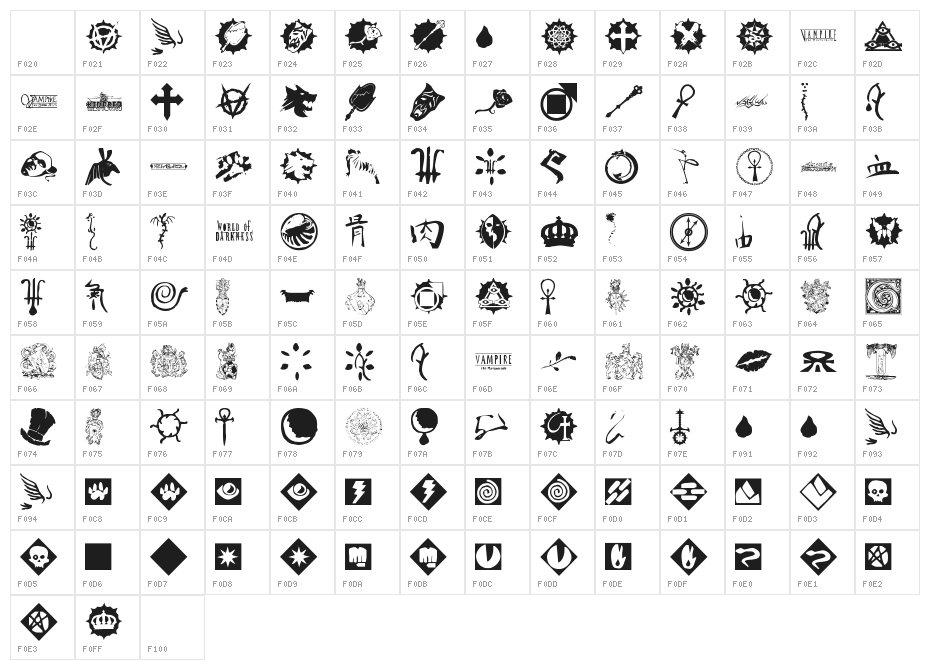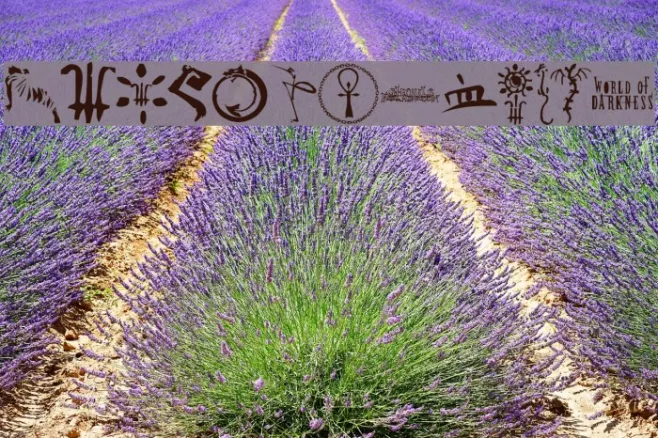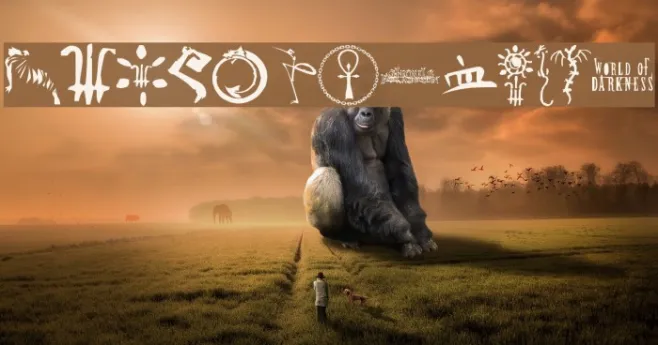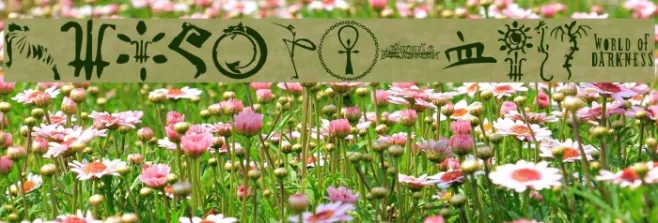
WW Vampire Sigils Font
WW Vampire Sigils Description
This collection of symbols and sigils is inspired by gothic and mystical themes, featuring intricate designs that evoke a sense of mystery and darkness. The symbols are highly decorative, with elements such as crowns, masks, and mythical creatures, each crafted with detailed line work and ornate embellishments. The style is reminiscent of ancient runes and esoteric symbols, making it ideal for projects that require a touch of the arcane or supernatural. The overall aesthetic is bold and striking, with each symbol standing out as a unique piece of art.
| Overall Style | Gothic, Mystical, Decorative |
| Use Case | Logos, Decorative elements, Fantasy-themed projects |
| Proposed Projects | Ideal for use in fantasy-themed games, book covers, or as decorative elements in graphic design projects that require a mystical or gothic touch. |